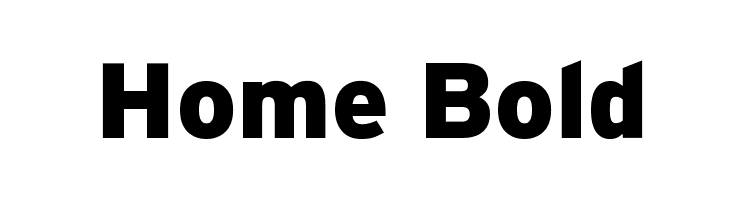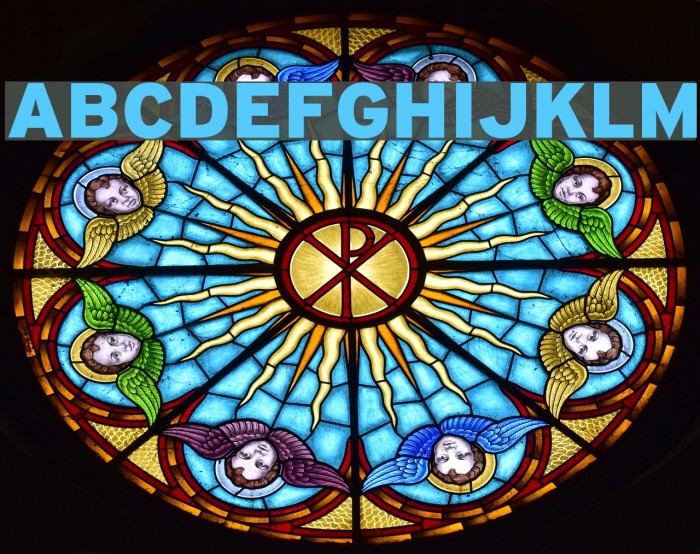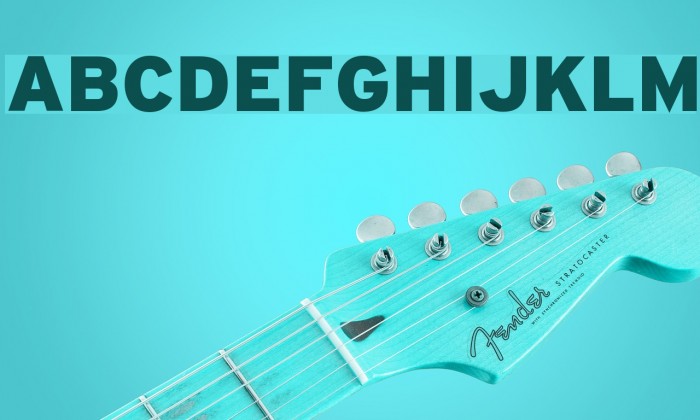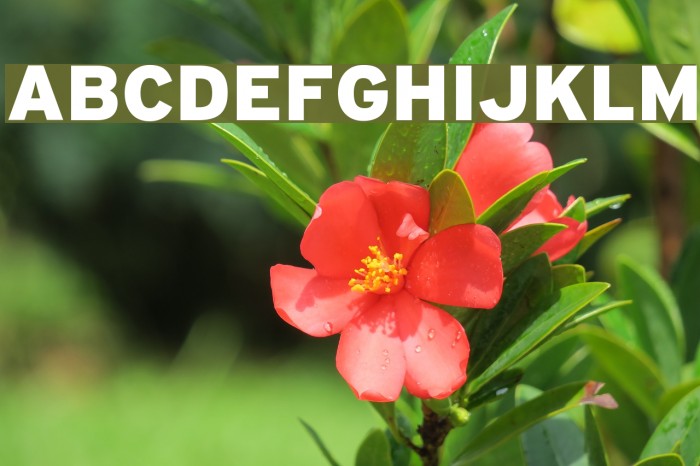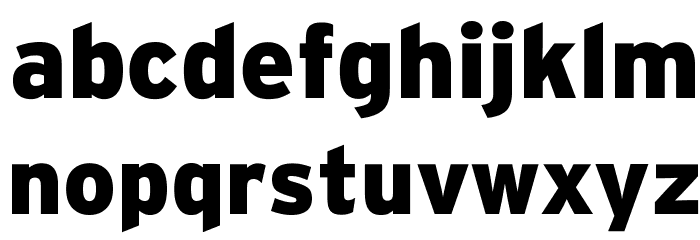
Home Bold Font
Home Bold Description
This bold, sans-serif typeface features strong, thick strokes that convey a sense of power and stability. The characters are uniformly wide, providing a balanced and cohesive appearance. The uppercase letters are particularly striking, with their robust and commanding presence. The lowercase letters maintain the boldness, ensuring legibility and impact. The numerals are clear and consistent, making them suitable for various applications. Special characters are well-integrated, maintaining the overall bold aesthetic. This font is ideal for projects that require a strong visual impact.
| Proposed Projects | Ideal for headlines, posters, branding, and advertising where a strong visual impact is needed. |